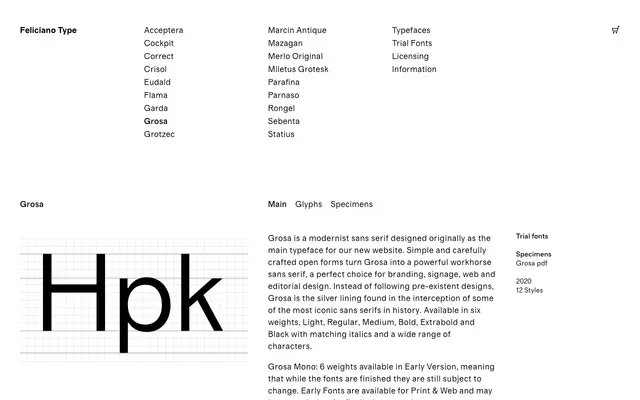
Grosa
Feliciano Type · 2020
A modernist sans serif with open forms, available in six weights with matching italics and a companion monospaced variant.
Originally designed as the typeface for the Feliciano Type website, Grosa draws from a range of canonical sans serifs without directly reviving any single one. Six weights from Light to Black come with matching italics, giving 12 styles in the main family, while Grosa Mono adds a further six weights for code and tabular contexts. The open forms and careful construction make it serviceable across branding, signage, web and editorial work.
Described by the foundry as a modernist sans serif with open forms synthesised from iconic historical sans serifs, placing it in a broad modernist sans tradition rather than a specific grotesque or geometric lineage.